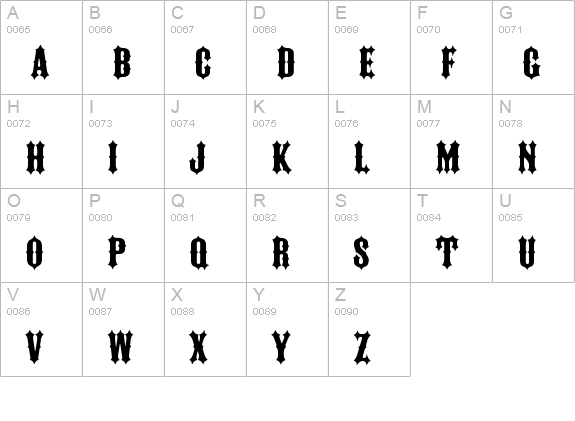
Introducing FTY IRONRIDER NCV, a remarkable font that exudes strength, power, and a touch of rebelliousness. This font showcases a perfect balance between edginess and elegance, making it an excellent choice for a wide range of design projects. FTY IRONRIDER NCV boasts bold and impactful letterforms that are intricately crafted to capture attention. Its robust and sturdy appearance gives off a sense of unwavering determination, making it ideal for projects that require a strong visual presence. This font's unique style is further enhanced by its free-spirited nature, making it a perfect fit for designs that defy conformity and embrace individuality. Whether you're working on a logo, a poster, a headline, or any creative endeavor, FTY IRONRIDER NCV will effortlessly inject a dose of rebellious energy into your work. The best part is that FTY IRONRIDER NCV is freely available to download at FontsMarket.com. This means that you can easily incorporate this extraordinary font into your projects without any hassle. With just a few clicks, you'll have access to a font that embodies power, freedom, and boldness. So, if you're looking to make a statement and leave a lasting impression, FTY IRONRIDER NCV is the font you've been searching for. Download it now from FontsMarket.com and let your creativity run wild with this captivating and freely available typeface.